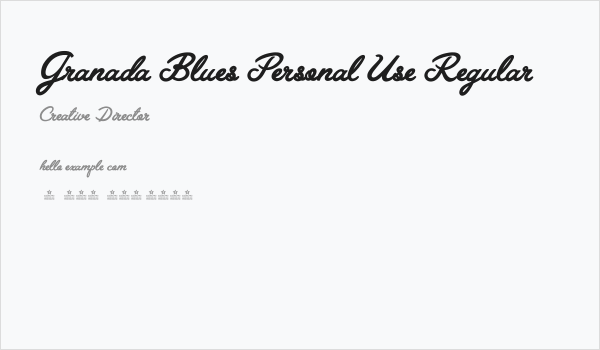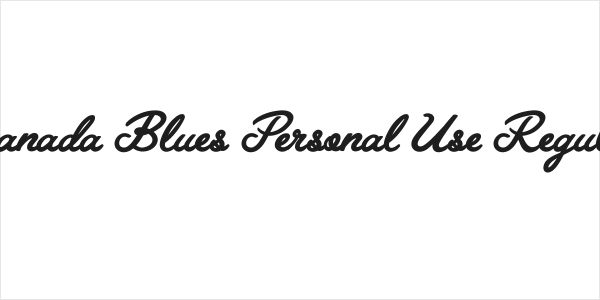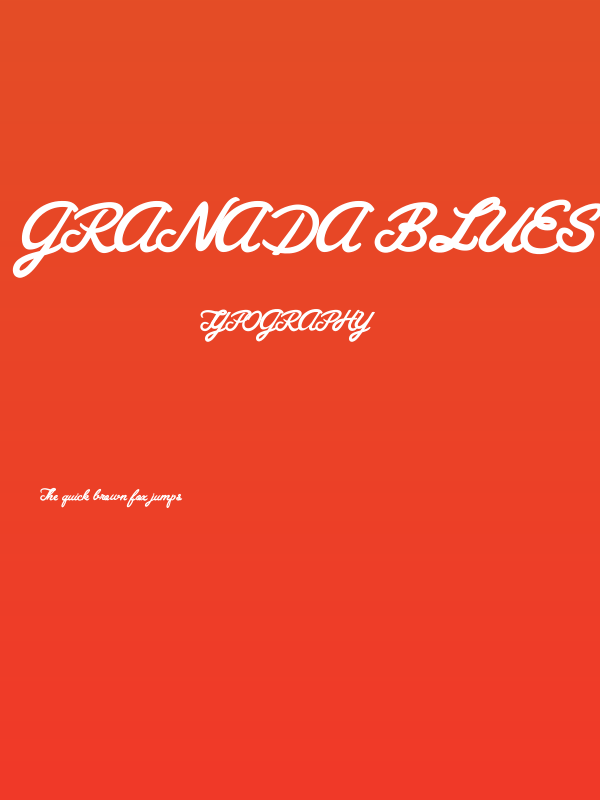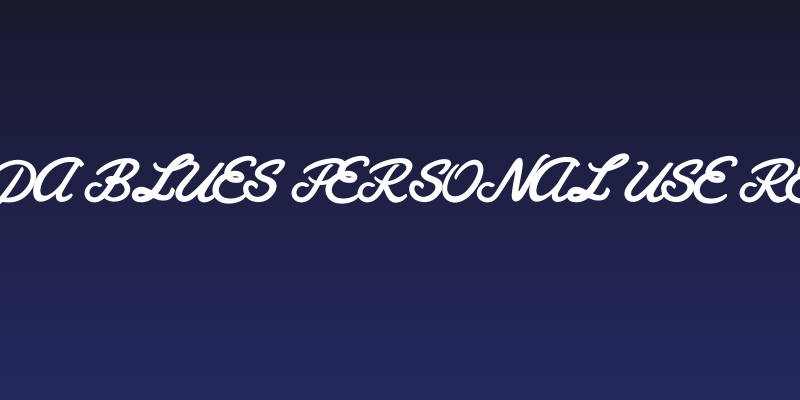
Granada Blues Personal Use Regular Font
Granada Blues Personal Use Regular Description
This font features a flowing, cursive style with elegant loops and smooth transitions between letters. The uppercase characters are bold and prominent, while the lowercase letters maintain a consistent fluidity, making it ideal for decorative purposes. The strokes are thick, providing a strong visual impact, yet the overall design retains a sense of grace and sophistication. The font's script nature gives it a handwritten feel, perfect for adding a personal touch to any project. Its unique style is both classic and modern, making it versatile for various design needs.